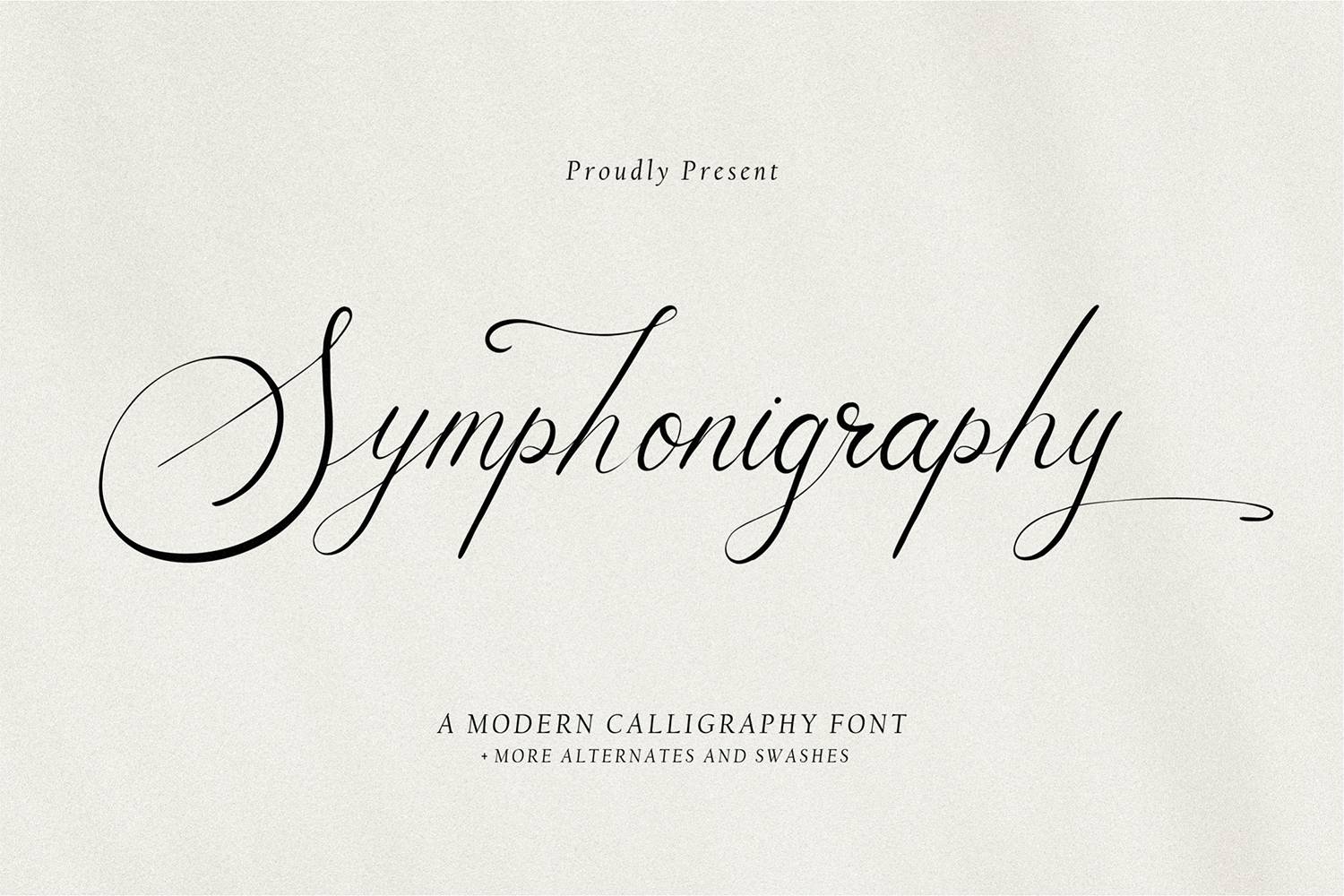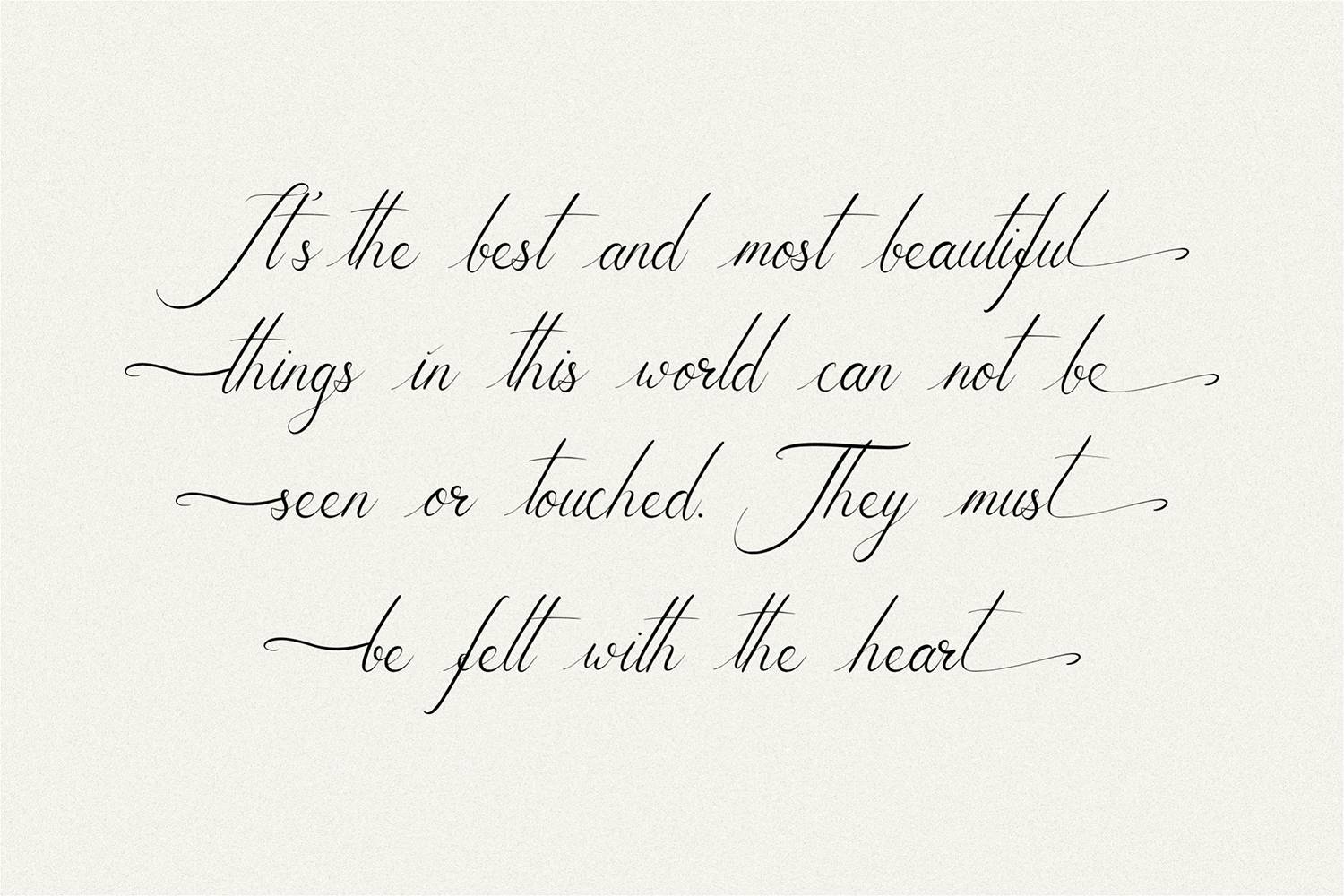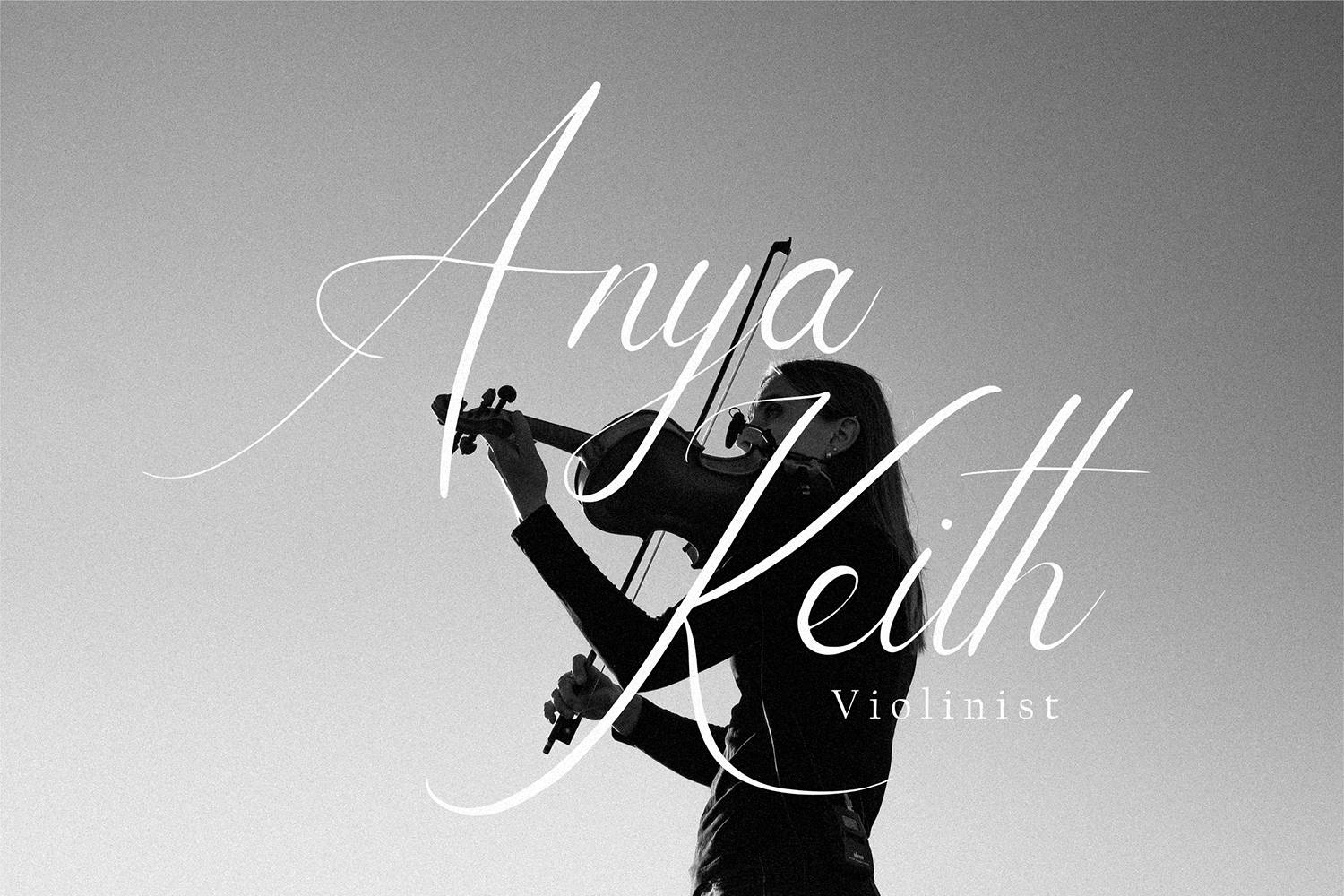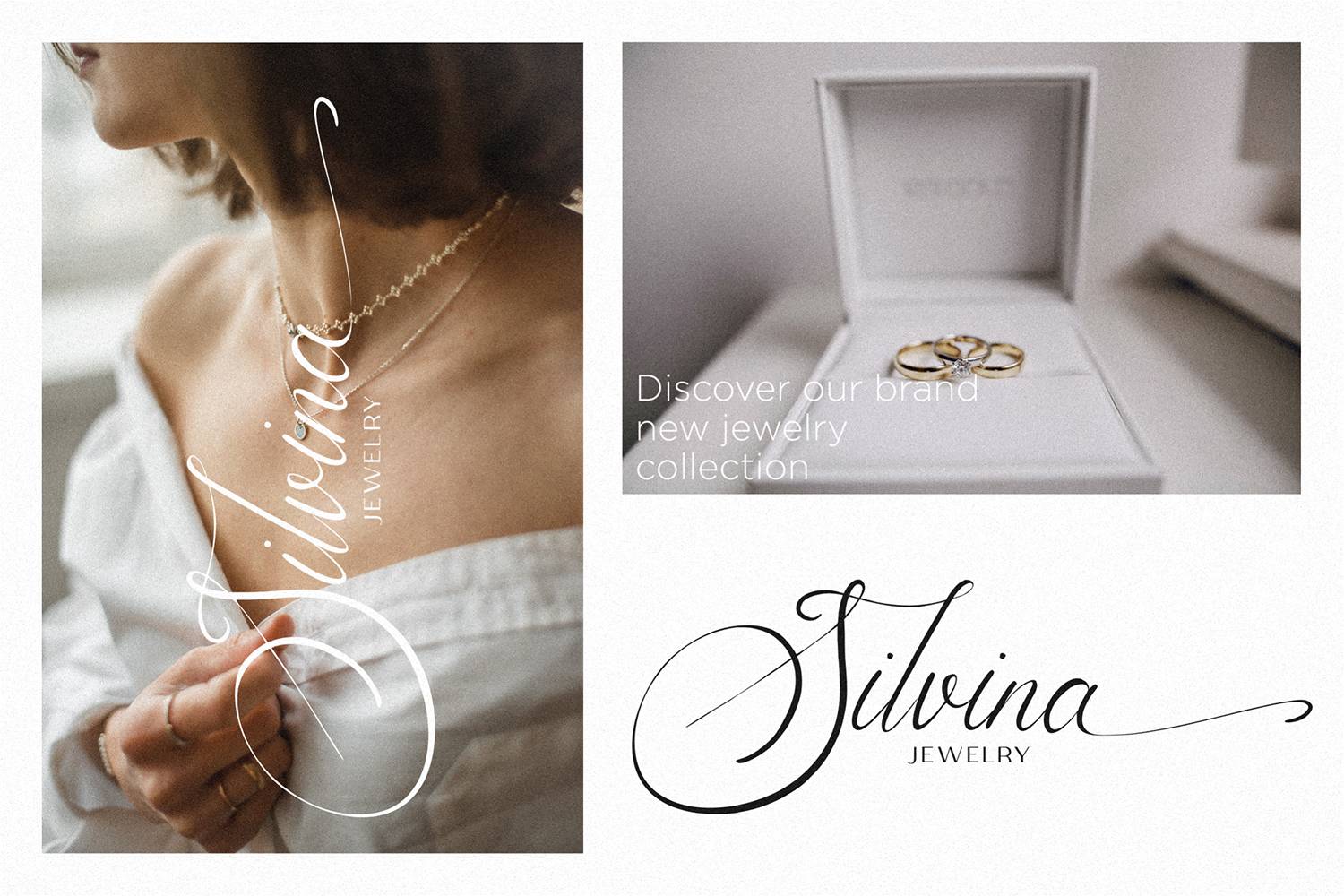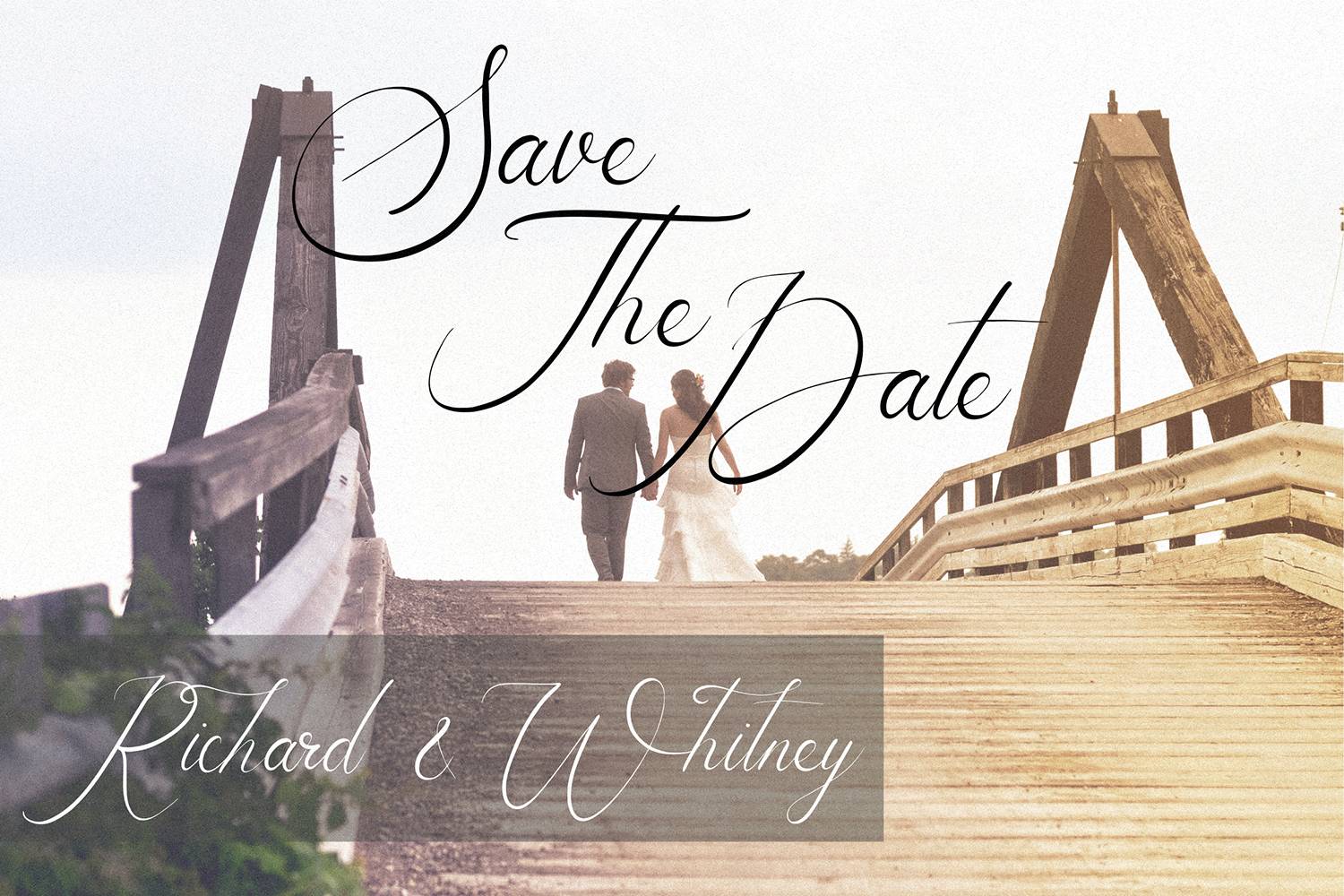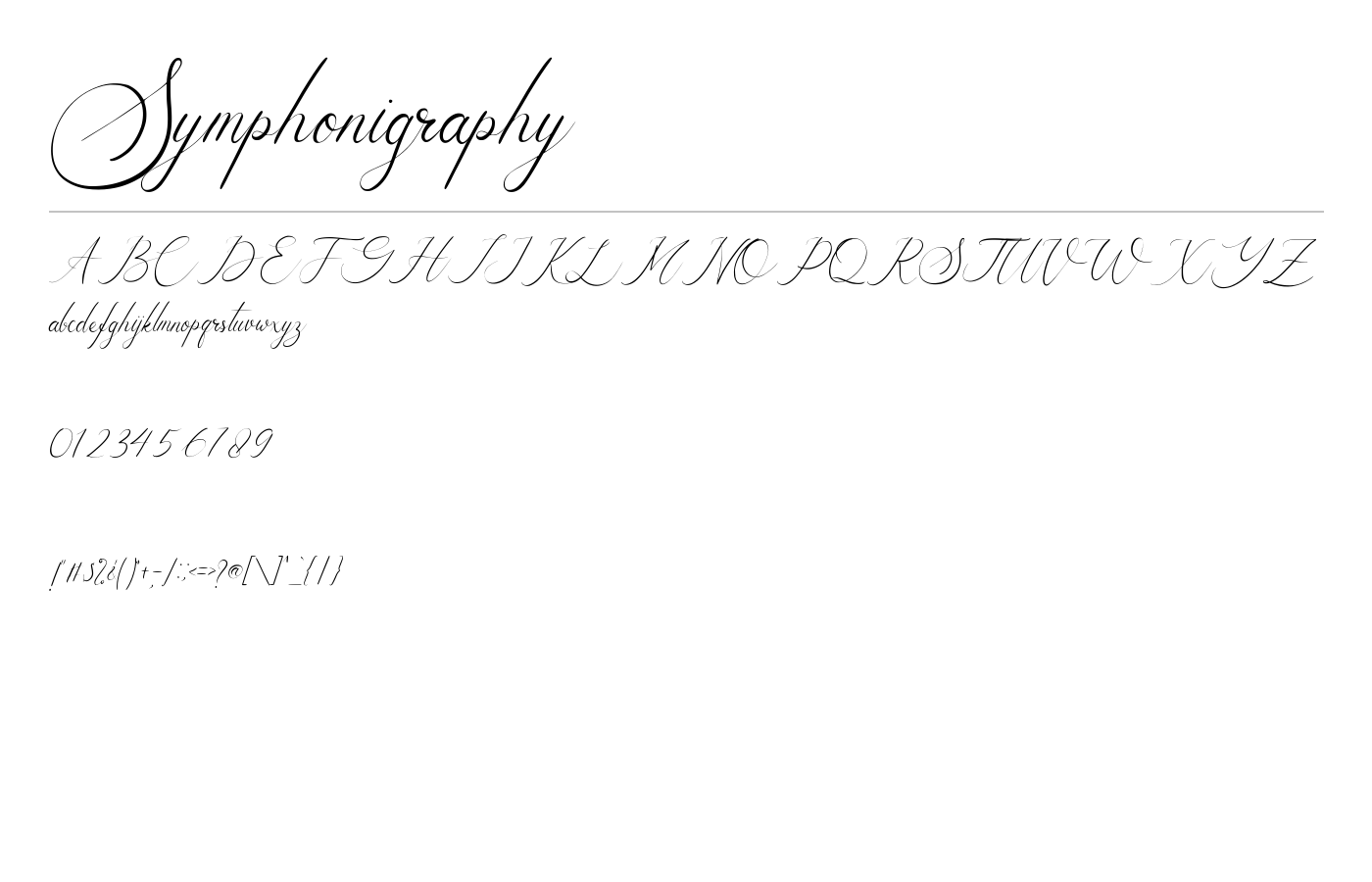
Symphonigraphy is an elegant script font characterized by its thin, flowing strokes and graceful, calligraphic style. With delicate, high-contrast lines and refined curves, it exudes a sophisticated, romantic feel, making it perfect for wedding invitations, luxury branding, and artistic editorial designs that aim to convey beauty and refinement. Its light weight and cursive nature give it a timeless charm suited for decorative headlines and special occasions.
Symphonigraphy Font
About Symphonigraphy Font